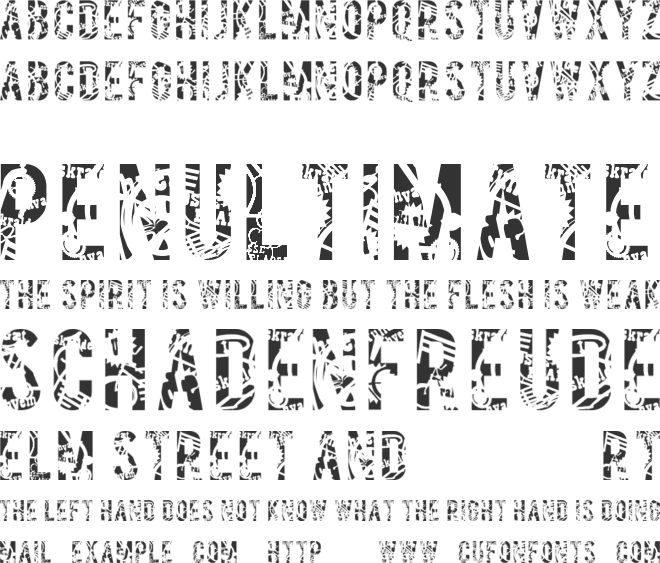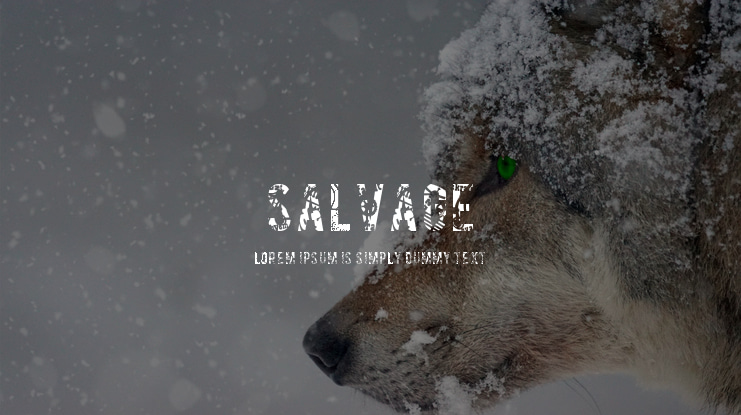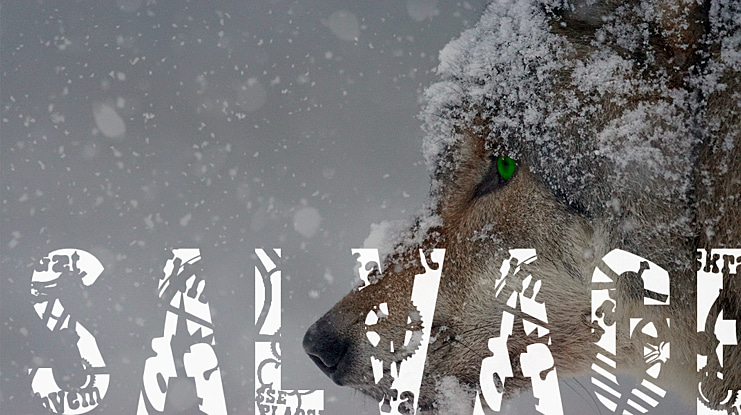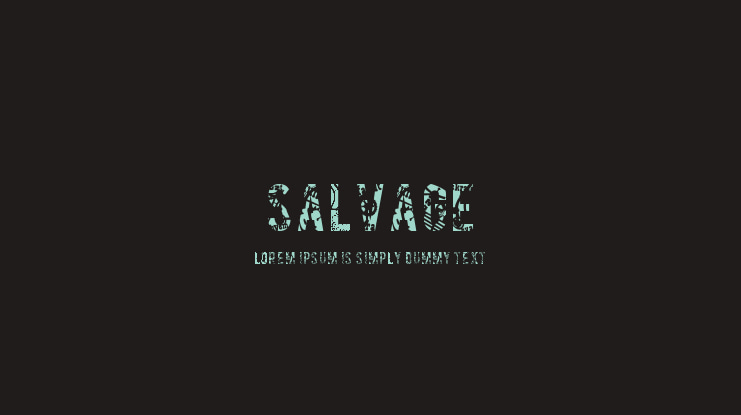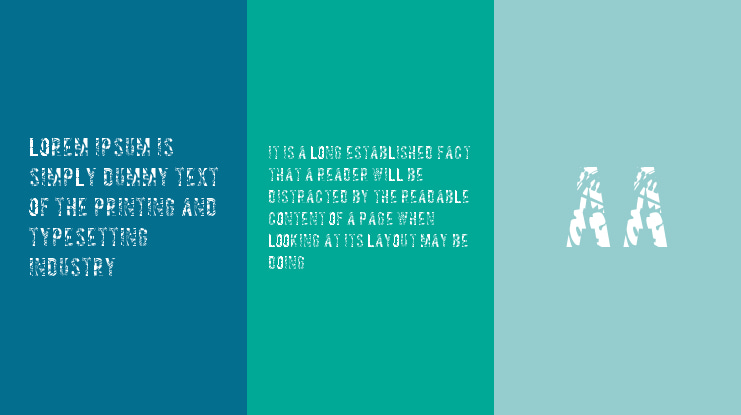
SALVAGE Font
I believe inspiration is a key factor in becoming a successful artist. My love affair with communicating visually. My love for typography and creative expression have recently turned into a true fascination of finding beauty in the shape of letterforms. I have long been inspired by my favorite artist, Dane Peter Callesen and his papercut creations. This past summer, I had the pleasure of traveling to Copenhagen, Denmark in hopes of seeing one of his exhibitions and instead stumbled across a show called SKRALD! or TRASH! It presented trash, recycling, waste, and consumption in a way I had never seen. There were sculptures, graphic posters, and photos that all involved upcycling and the use of objects most often seen as trash. My current work is a mash up of my inspiration from SKRALD, Peter Callesen, and typography. I have combined all three of these by designing a typeface that represents my inspiration from SKRALD. By creating this type I want to bring to light the issues presented by landfills and consumption.